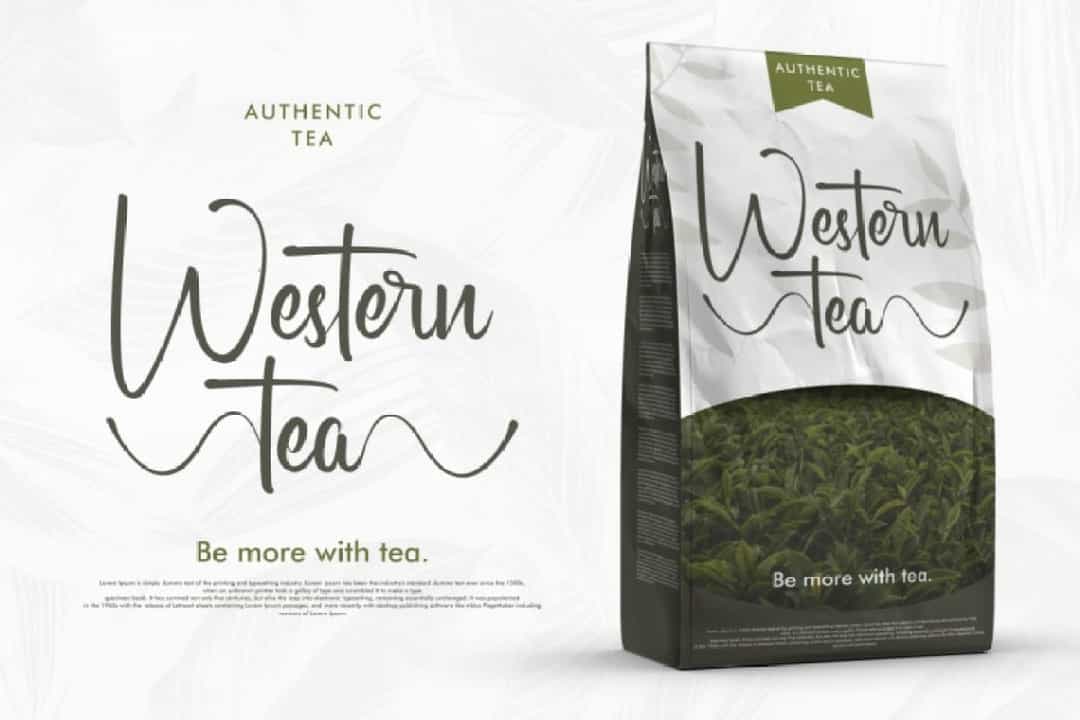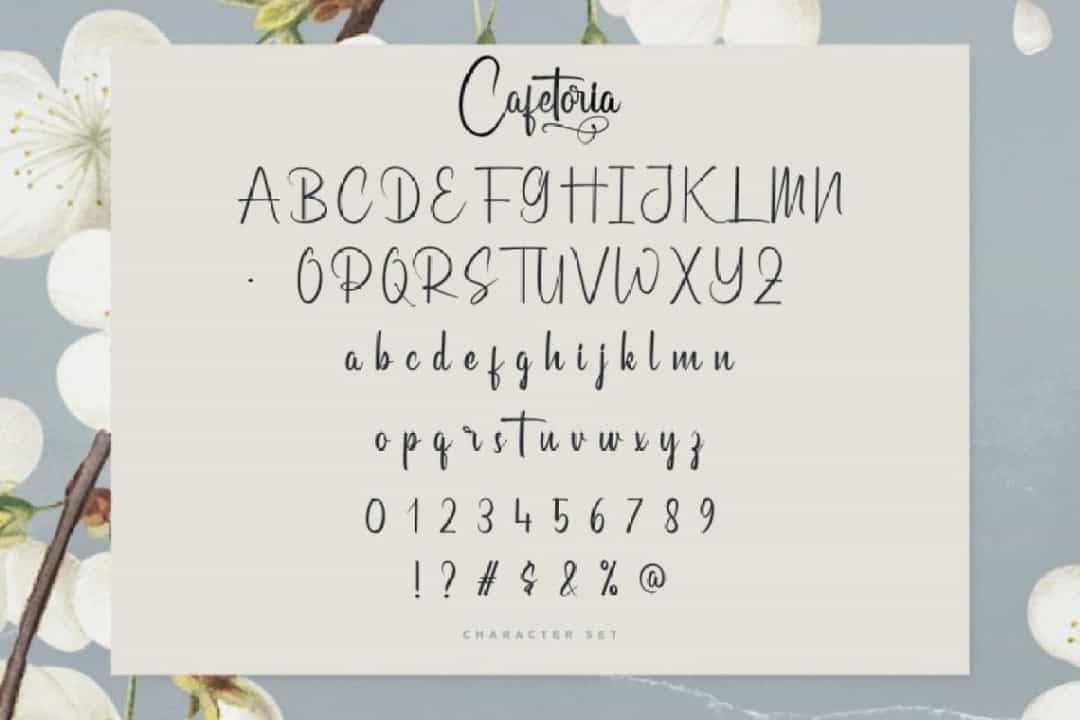
Cafetoria can be described as an elegant and modern script typeface. Hand-crafted to meet specific client requirements such as headlines, promotions events, branding advertising magazines signage invitations stationery social media posts labels or any other projects that require unique design such as makeup cosmetics food restaurant cafe wedding etc, Cafetoria was made by hand to meet these specifications.